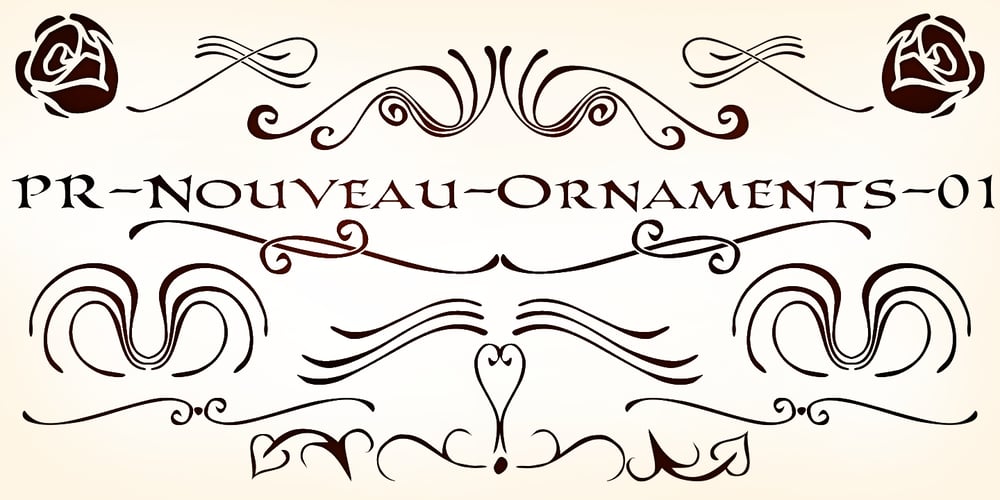
PR Nouveau Ornaments 01
PR Nouveau Ornaments 01 font
PR Nouveau Ornaments 01 Font Family was designed by Peter Rempel and published by PR Fonts. PR Nouveau Ornaments 01 contains 1 styles and family package options. This is a set of ornaments inspired by the art nouveau style. Frames, corners, rules and flowers are included.